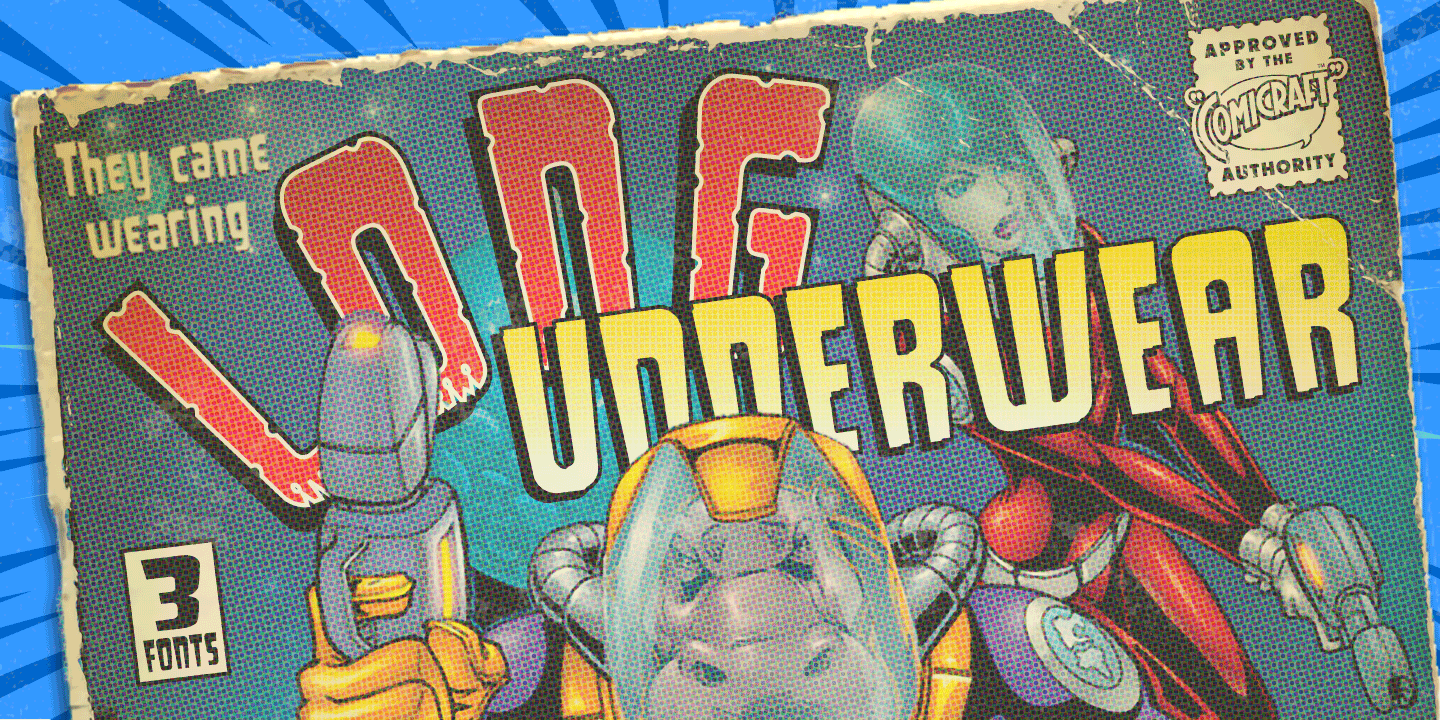
Long Underwear Font Free Download is a quirky, playful typeface with vintage comic vibes and a touch of nostalgic warmth. Please note that you must purchase this font for commercial use. It is available for free download for personal and testing purposes only.
You can use Long Underwear Font in comic books, retro posters, children’s party invitations, novelty packaging, vintage-style ads, greeting cards, and fun social media graphics. It’s great for any project that wants to bring a big personality and a little bit of silliness to the table.
What makes Long Underwear so exciting is its humor-filled letterforms — each character looks like it walked out of a 1950s cartoon strip. It’s light-hearted but intentionally designed, making your work feel unique, approachable, and full of retro character.
The Long Underwear Font family includes styles like Long Underwear Regular, Long Underwear Bold, Long Underwear Comic, and Long Underwear Shadow, offering flexibility for playful layering and vibrant designs.
If you're on the hunt for a typeface that brings humor, charm, and old-school comic energy to your visuals, Long Underwear Font Free Download is exactly what you need. Download it today and let your designs wear their personality — loud, proud, and full of fun.